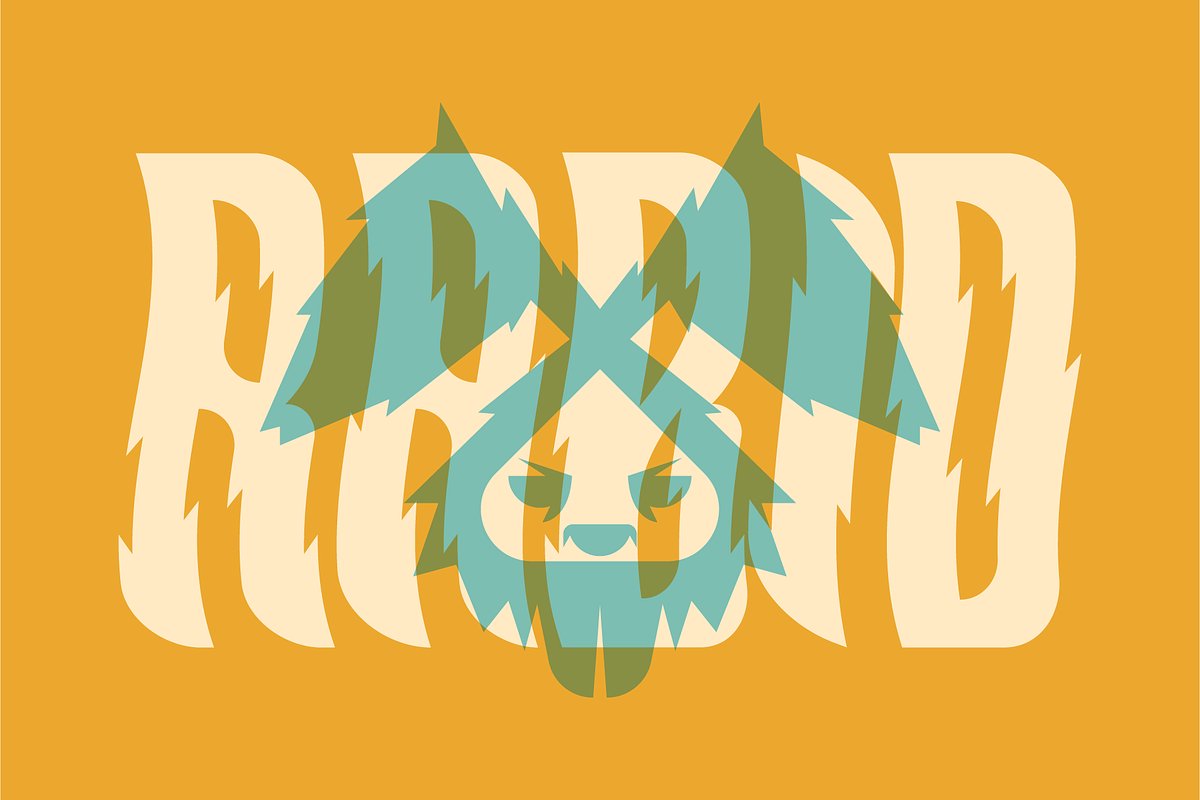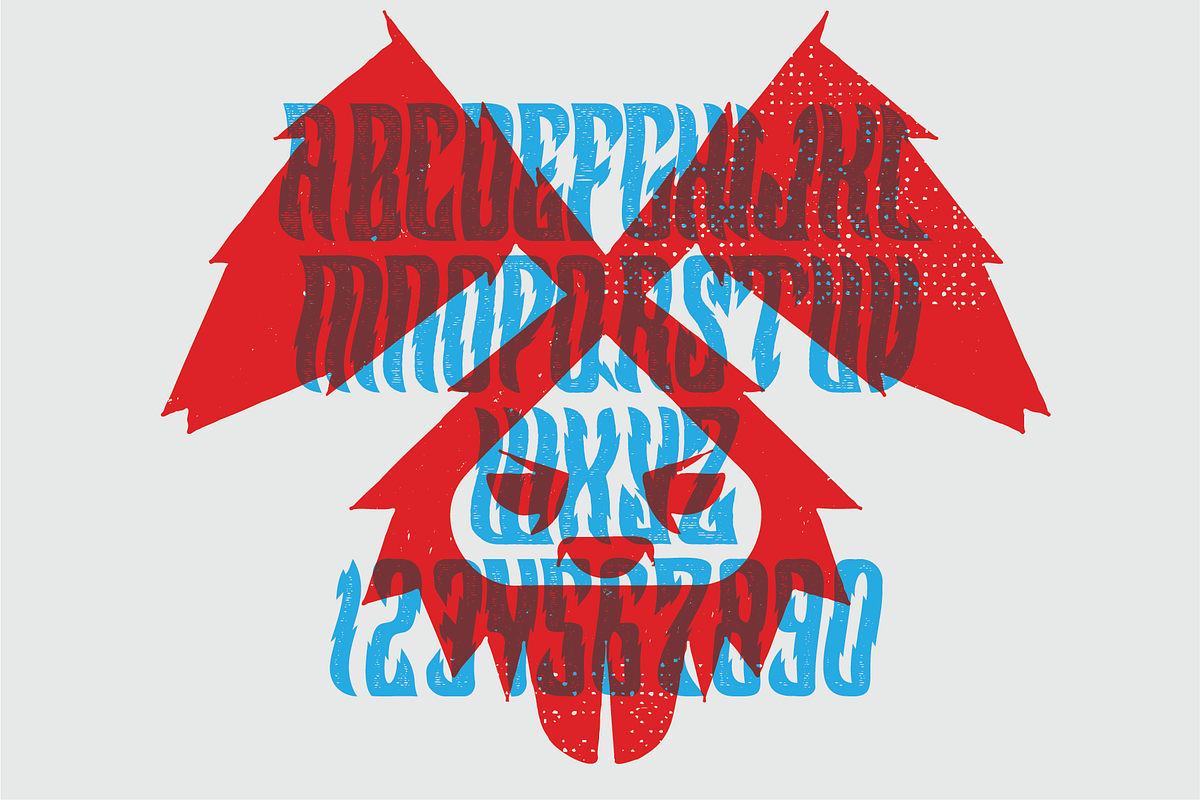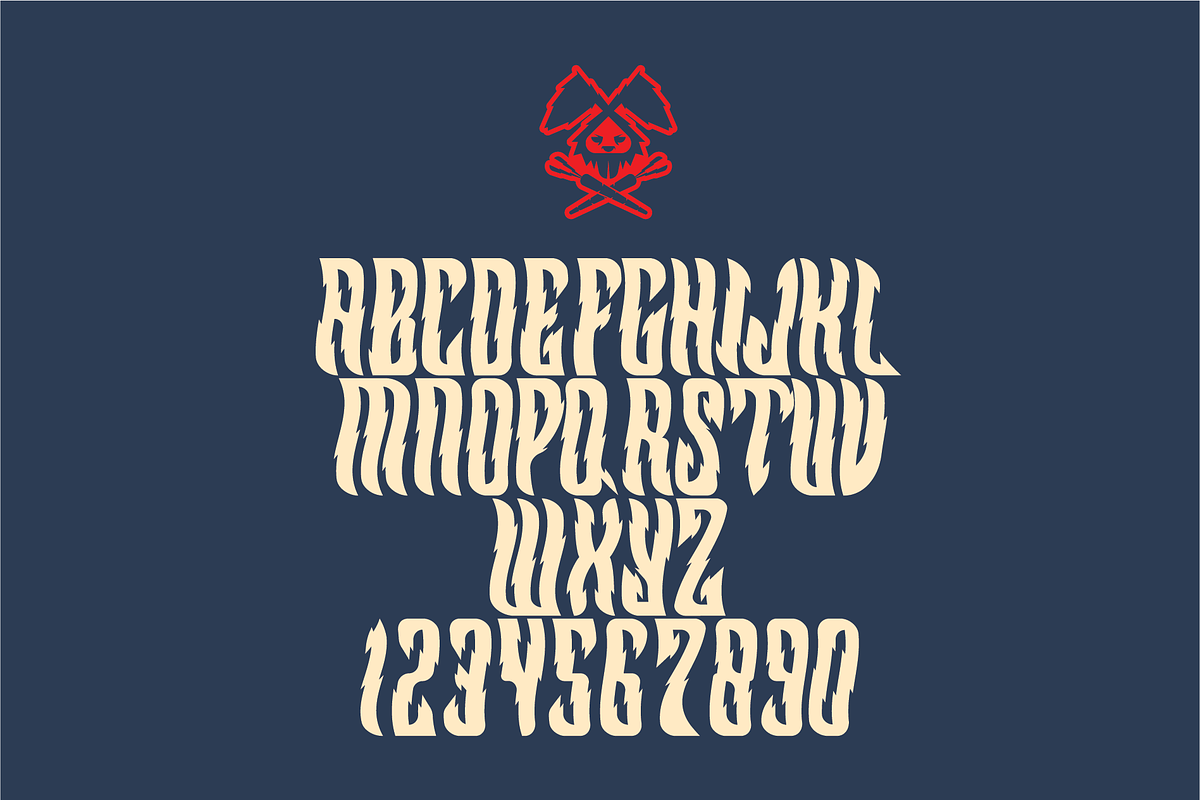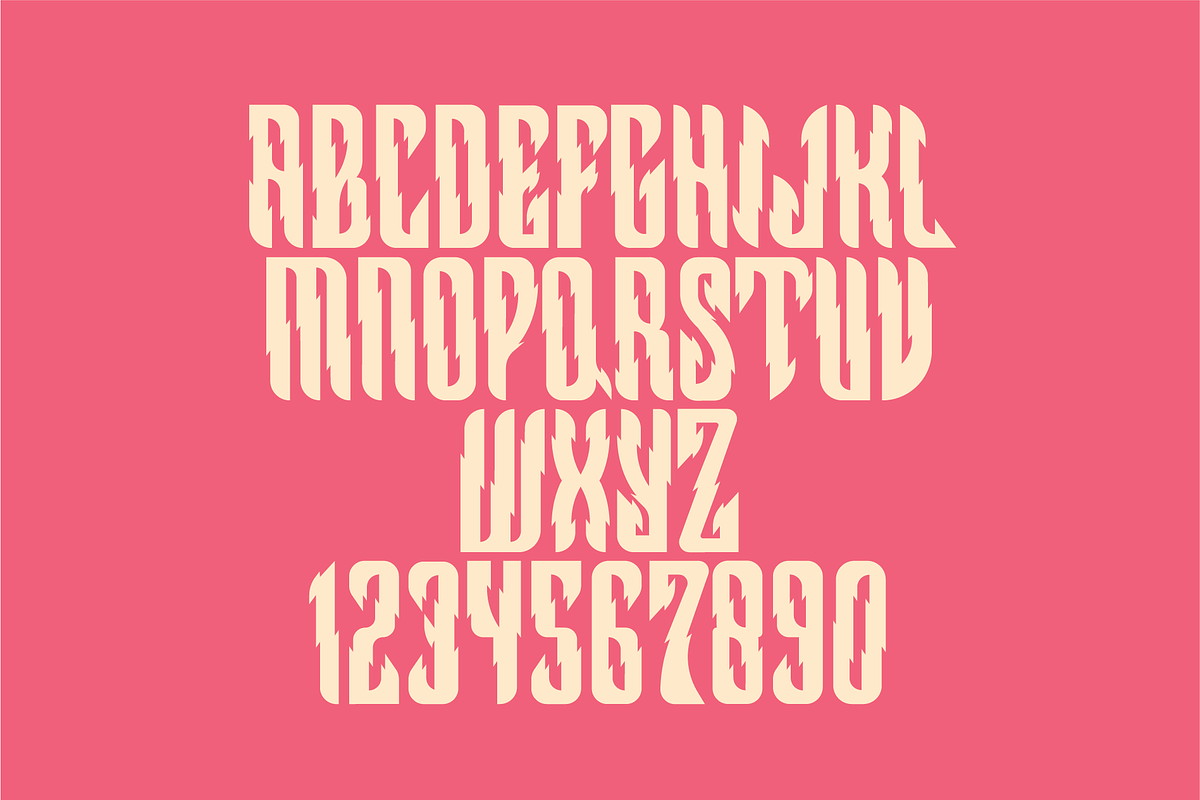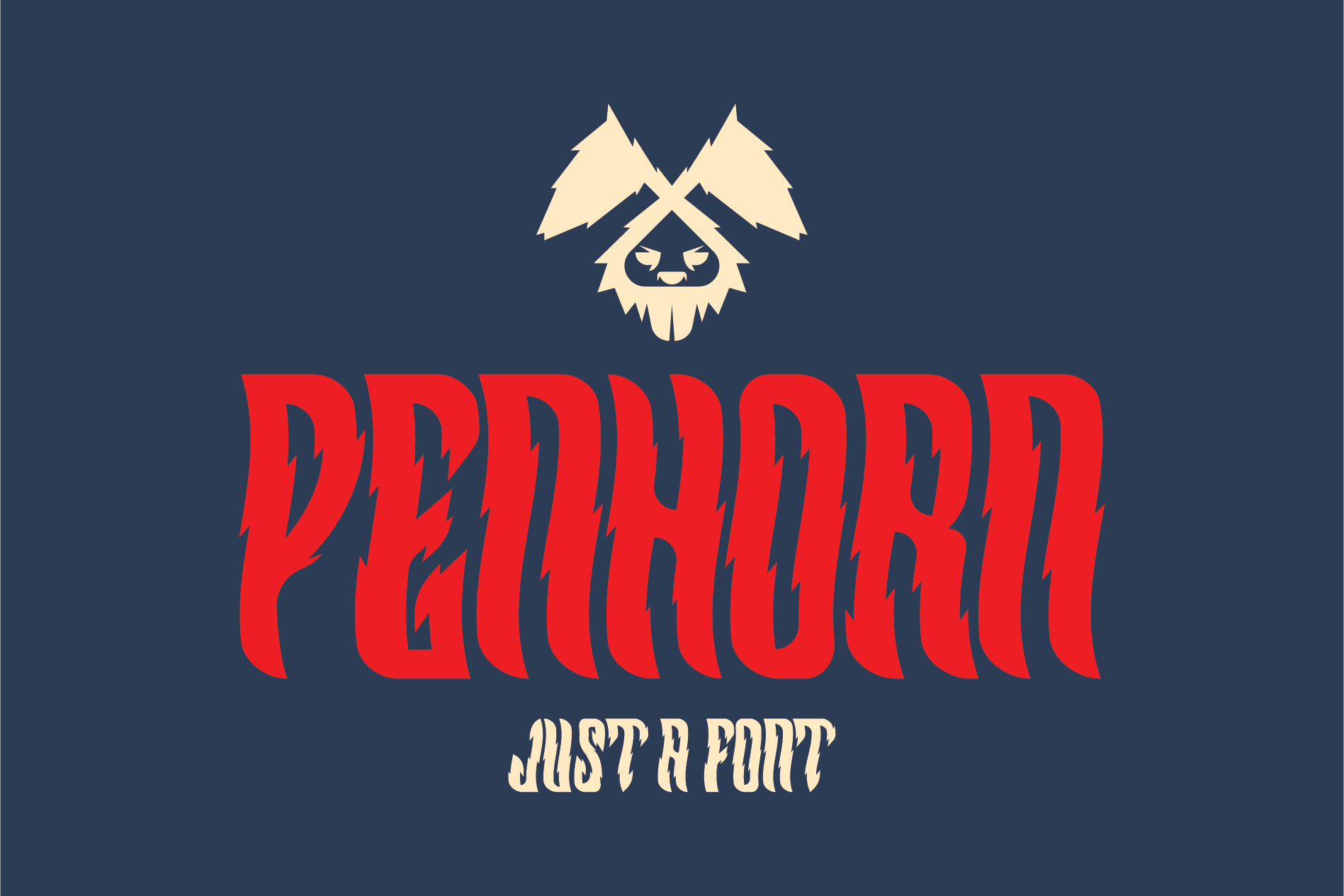
Penhorn Display Font | 3 styles
A fun and playful title and display font with many uses. Designed specifically with apparel and poster design in mind but the possibilities are yours to enjoy. Thanks.